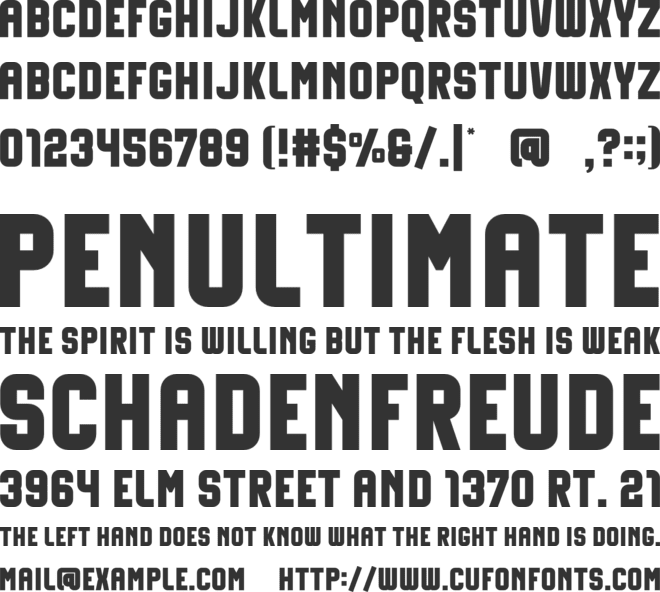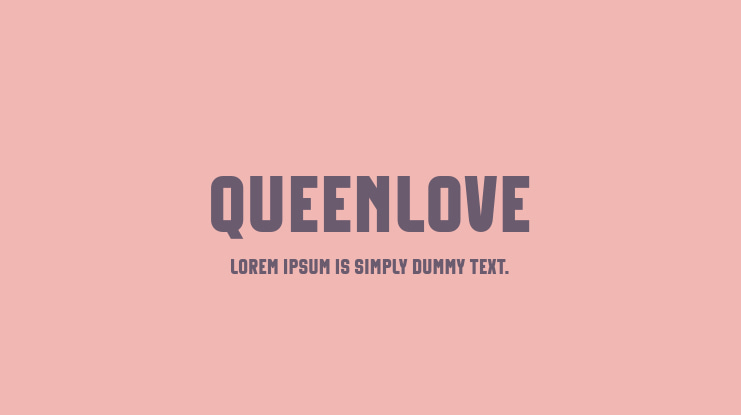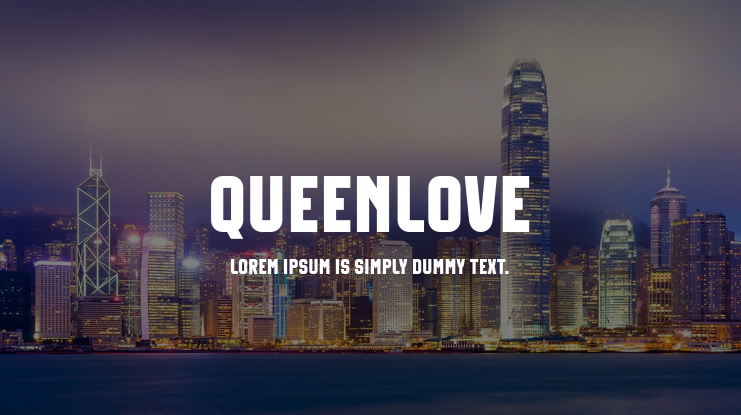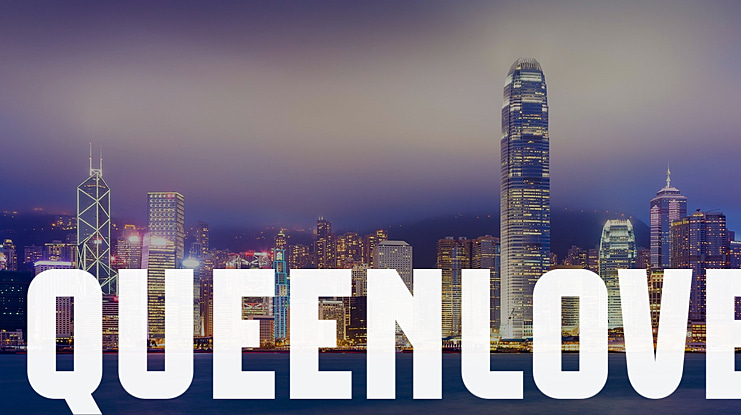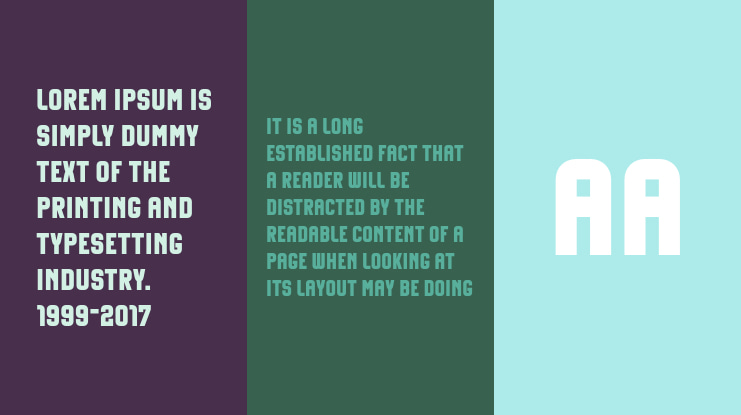
Queenlove Font
It’s a bold sans serif font with a soft touch that blends with a bold feel creates a fresh and modern font, best used as a display for headings, logos, branding, magazines, product packaging and invitations. Queenlove come with clean lines and smooth curves give any project an extra touch of class.